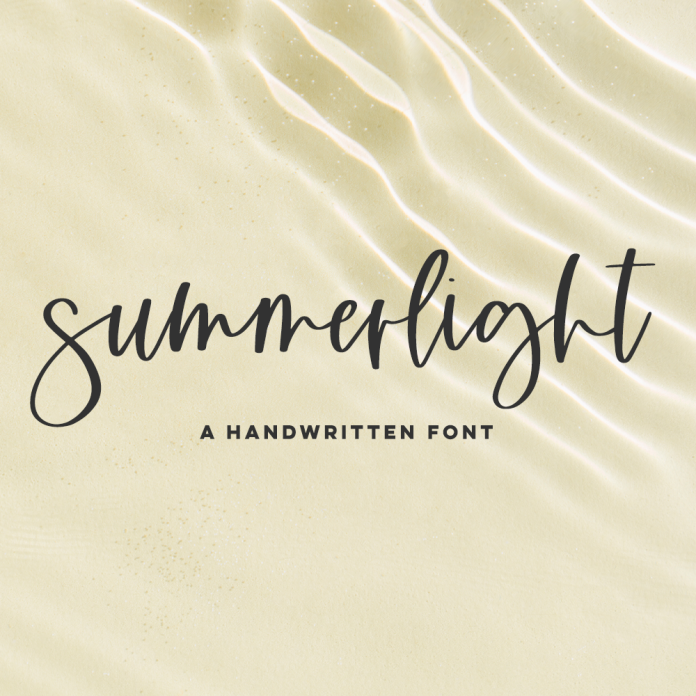
Summerlight Script Font
Introducing Summerlight Script, a handwritten signature style font. This stylish font features a messy, casual look with a slight bounce. It gives it a feminine appeal, and would be the perfect fit for a chic, modern beauty brand. Summerlight Script is best for: - logos + branding - website design + website accents - think design blogs, travel blogs, fashion blogs, & more - clean print design, like magazines + flyers - header elements that need handwritten touch - quote graphics for social media Summerlight includes: - full upper + lowercase characters - numbers + punctuation - Western European Language Support - 7 ligatures - gg, ll, mm, nn, oo, rr, tt - PUA-encoding